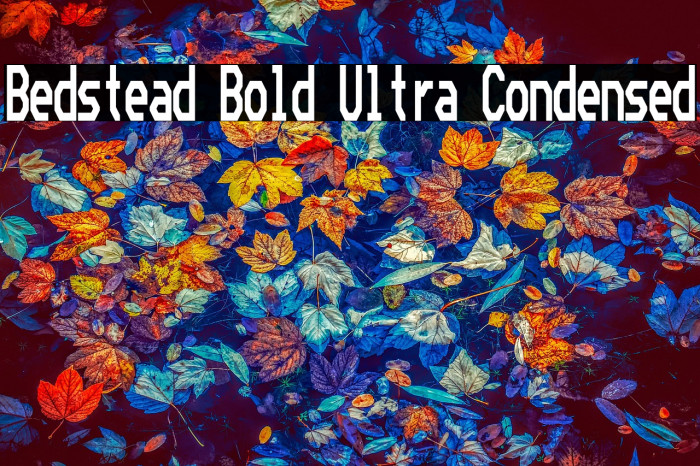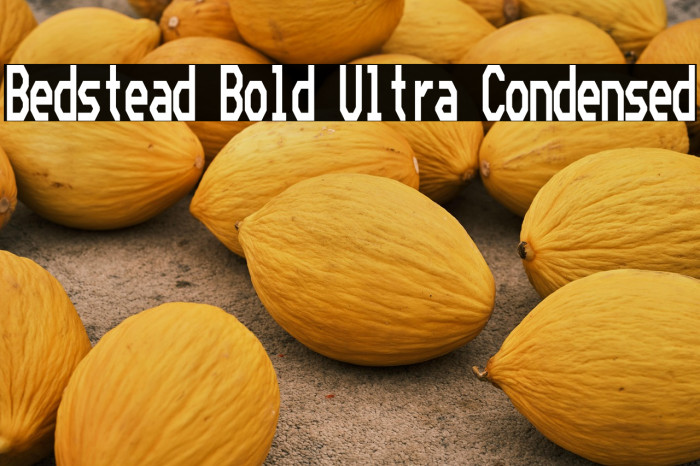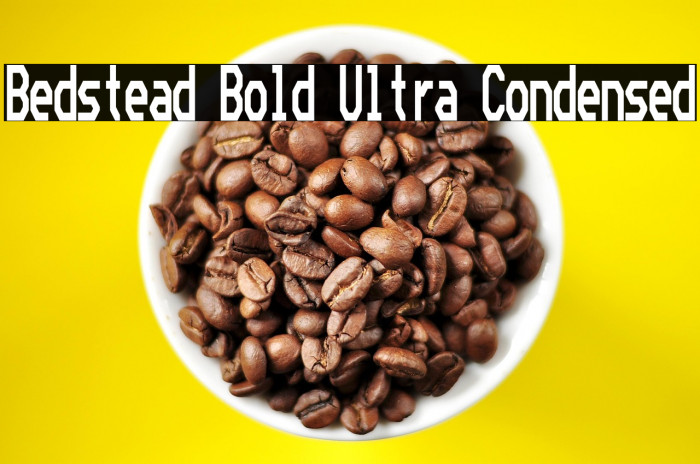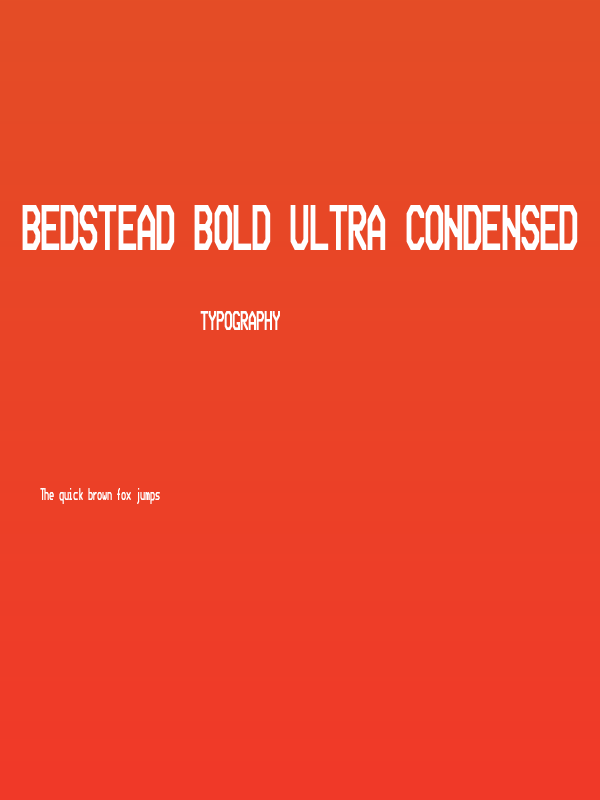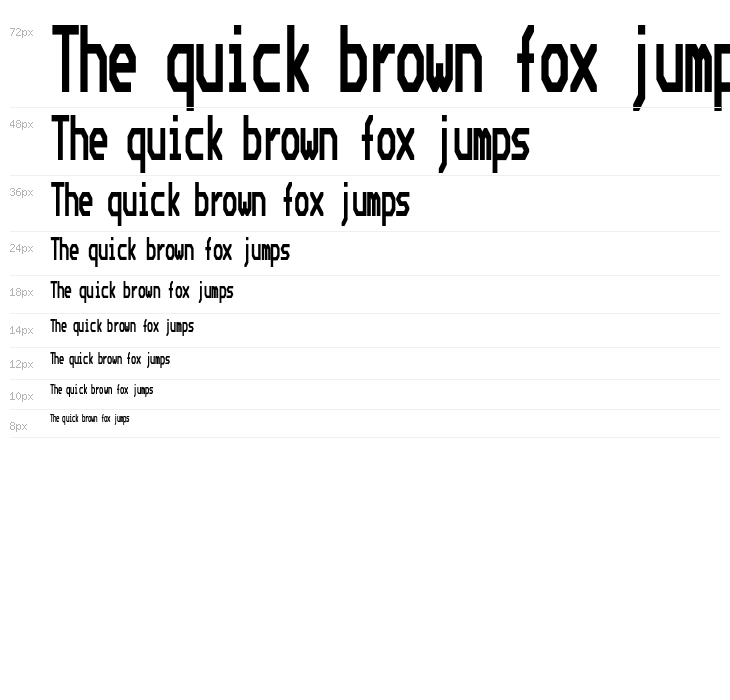
Bedstead Bold Ultra Condensed Font
Bedstead Bold Ultra Condensed Description
This font exhibits a bold and ultra-condensed style, characterized by its geometric and block-like letterforms. The uppercase and lowercase letters maintain a consistent height, creating a uniform appearance. The strokes are thick and uniform, contributing to a strong visual impact. The design is straightforward, with minimal curves and a focus on angular shapes, making it highly legible even at smaller sizes. The numerals and special characters follow the same design principles, ensuring consistency across all glyphs. This font's condensed nature allows for efficient use of space, making it suitable for environments where text needs to be compact yet readable.